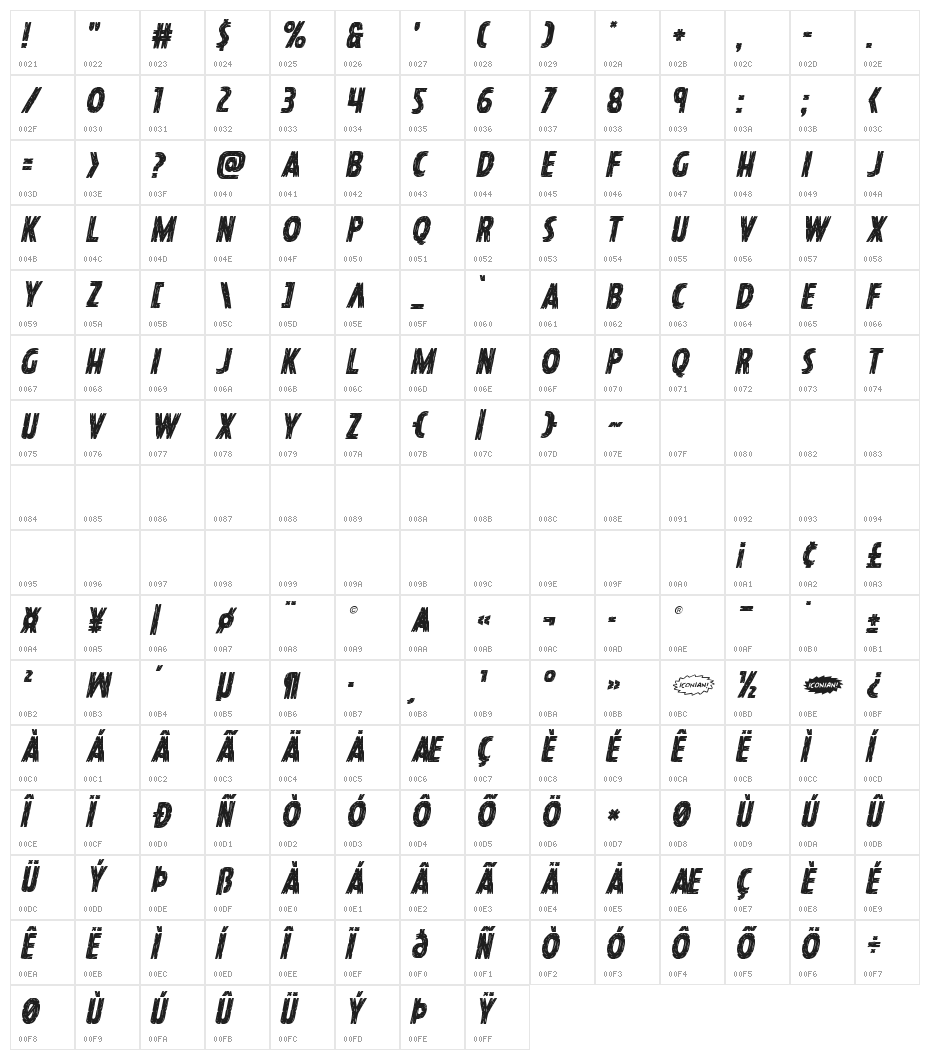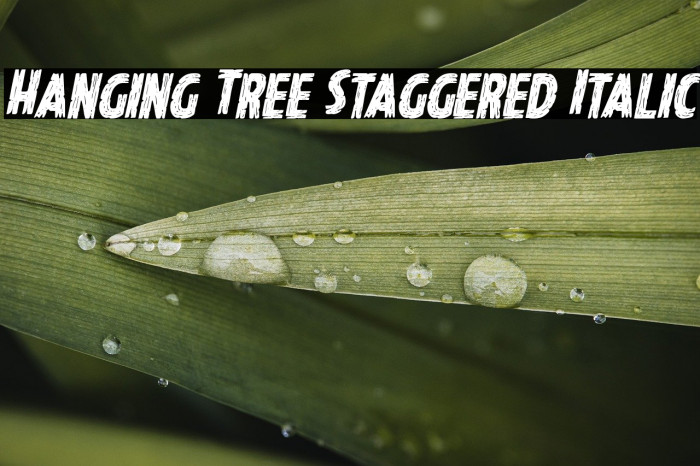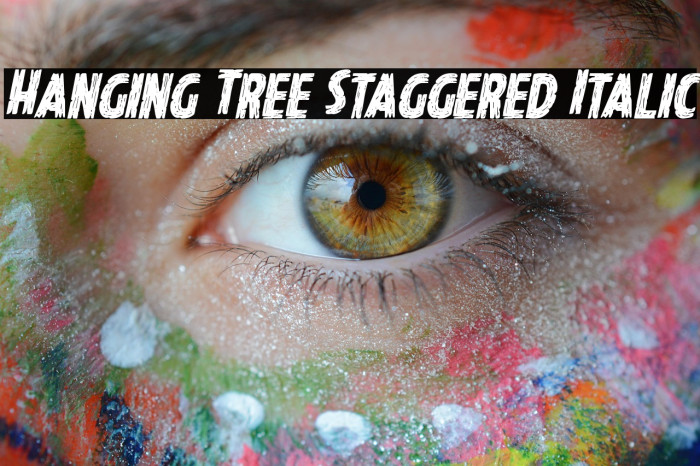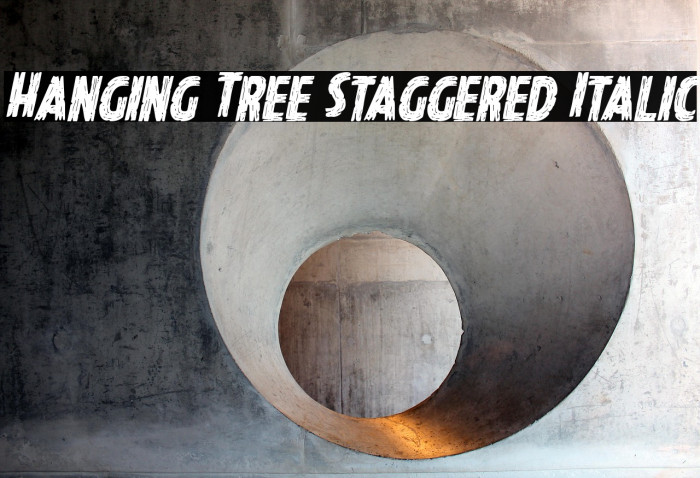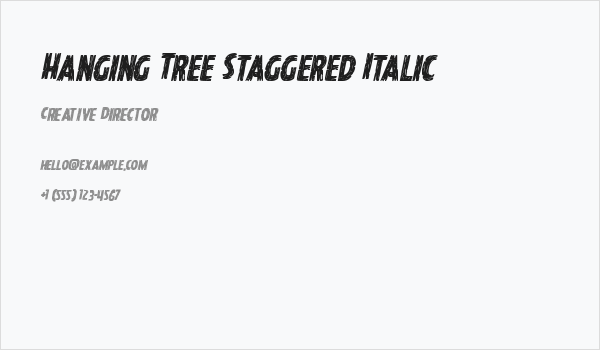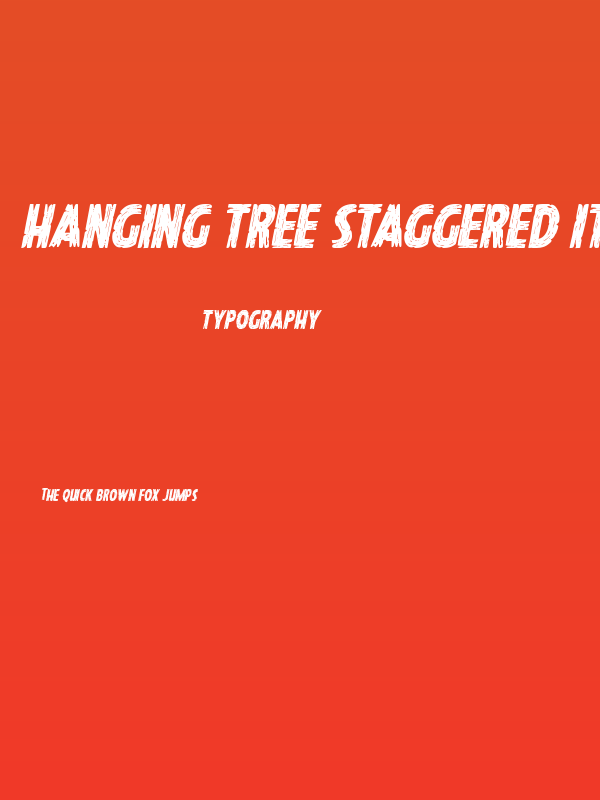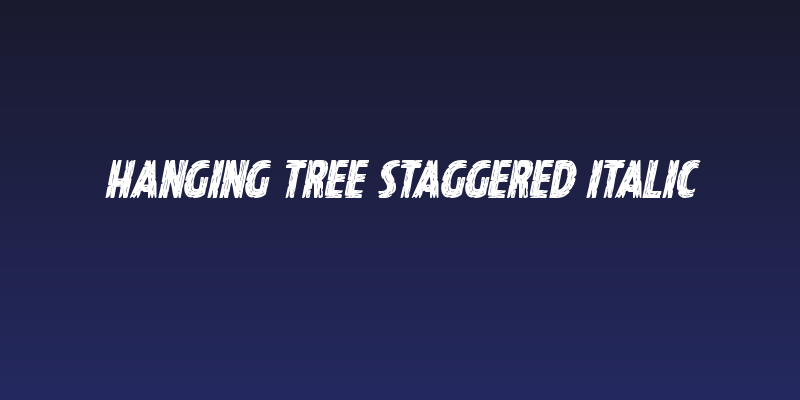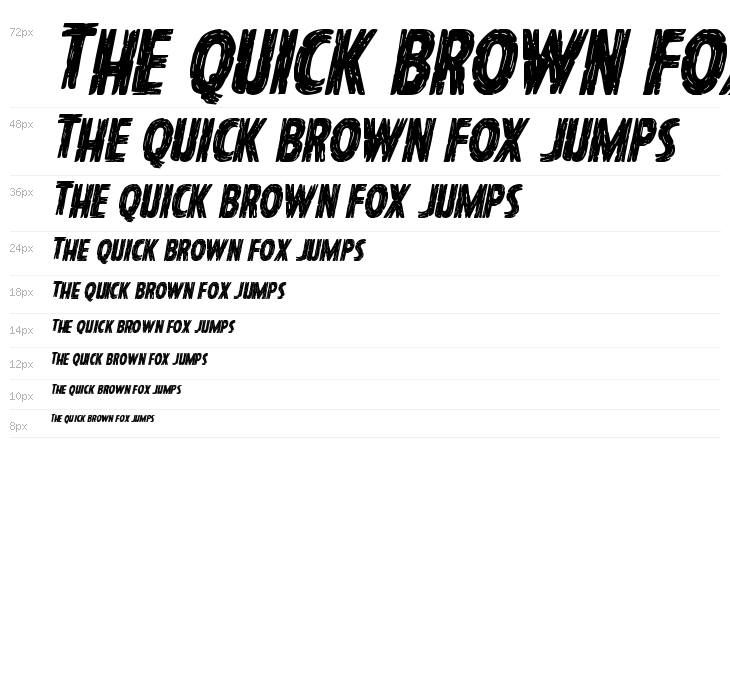
Hanging Tree Staggered Italic Font
Hanging Tree Staggered Italic Description
This font features a bold, dynamic style with a staggered, italicized appearance. The characters are heavily textured, giving them a rough, hand-drawn look. The strokes are uneven, adding a sense of movement and energy. The uppercase and lowercase letters maintain a consistent style, with exaggerated angles and a slightly condensed form. Numbers and special characters follow the same aesthetic, ensuring a cohesive look across all glyphs. The font's unique design makes it stand out, perfect for projects that require a strong visual impact.
| Proposed Projects | Ideal for posters, album covers, branding, and any project needing a bold, artistic touch. |